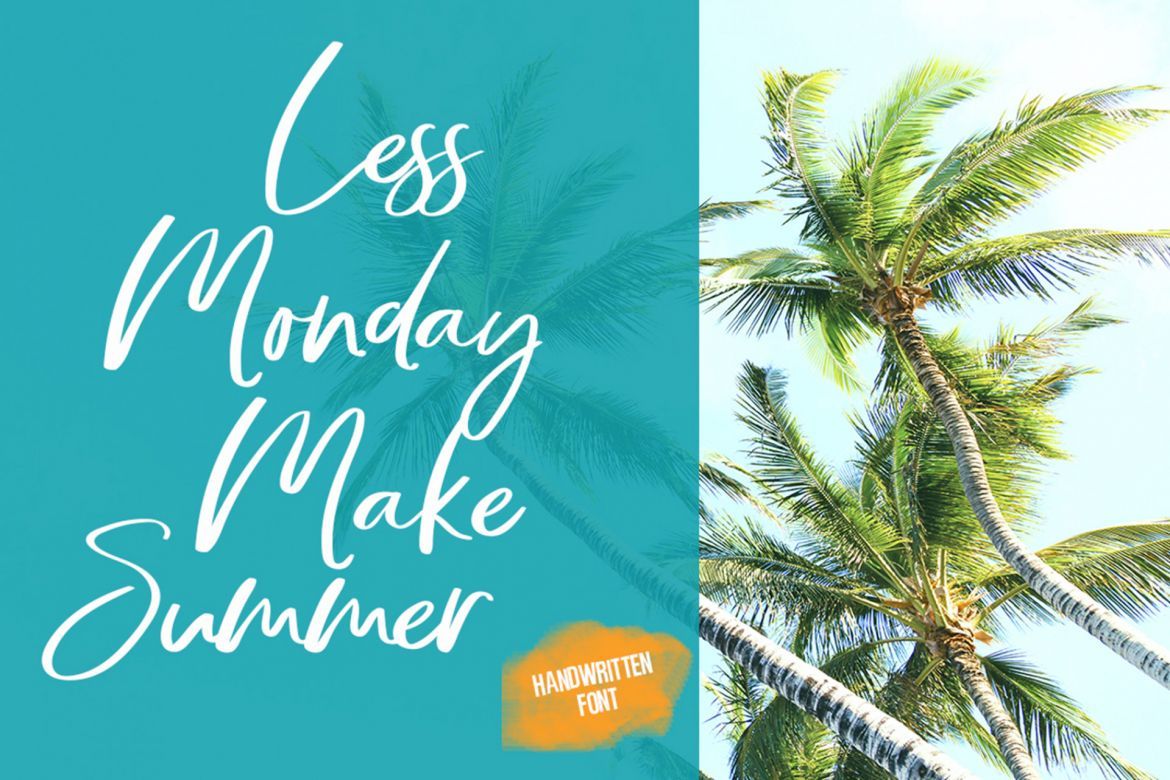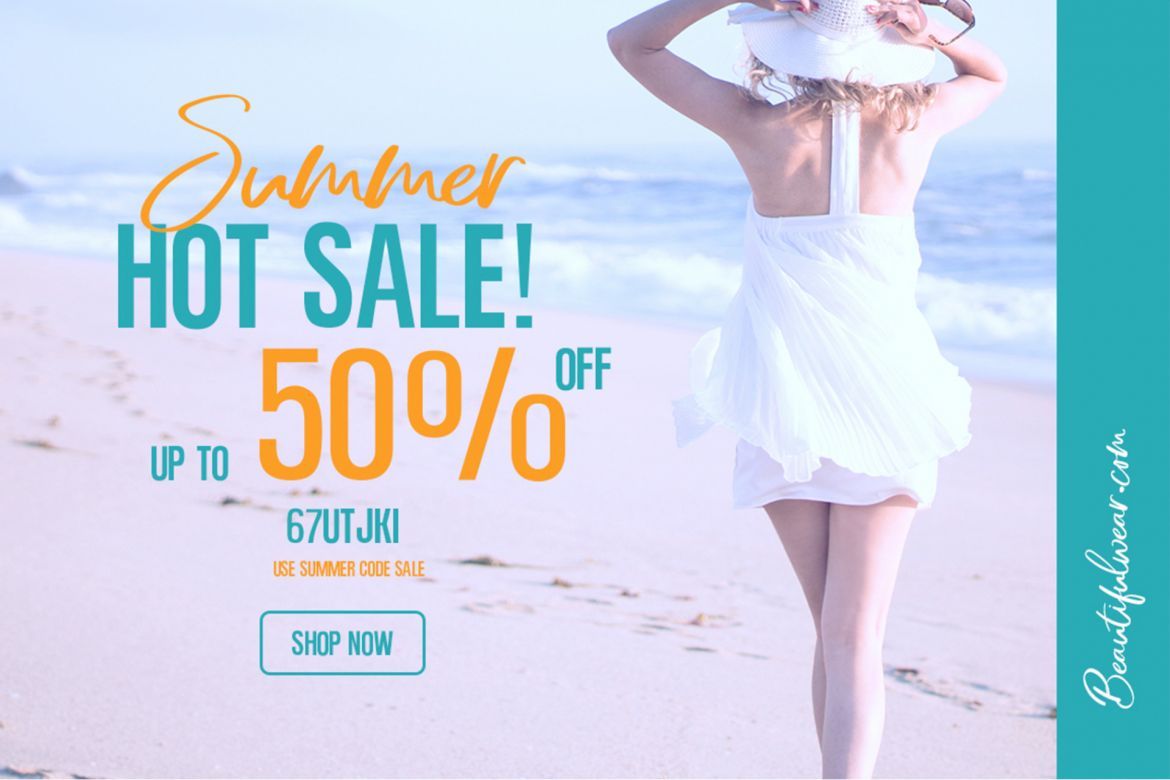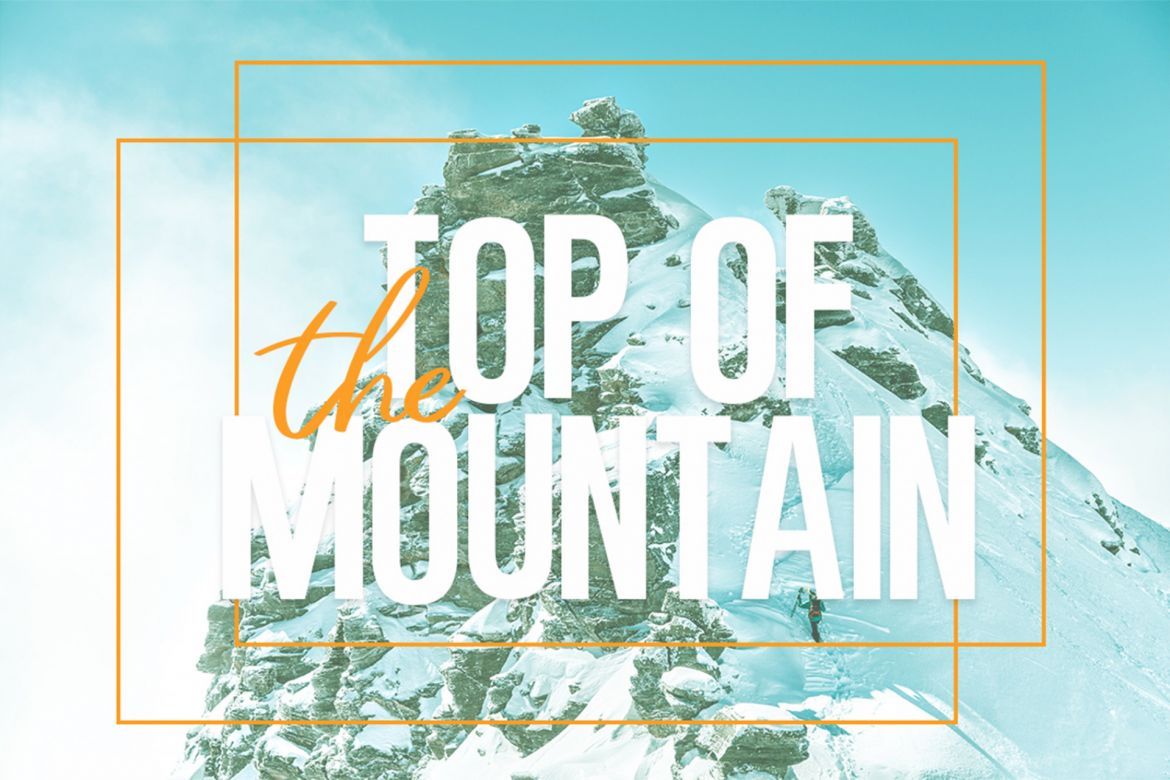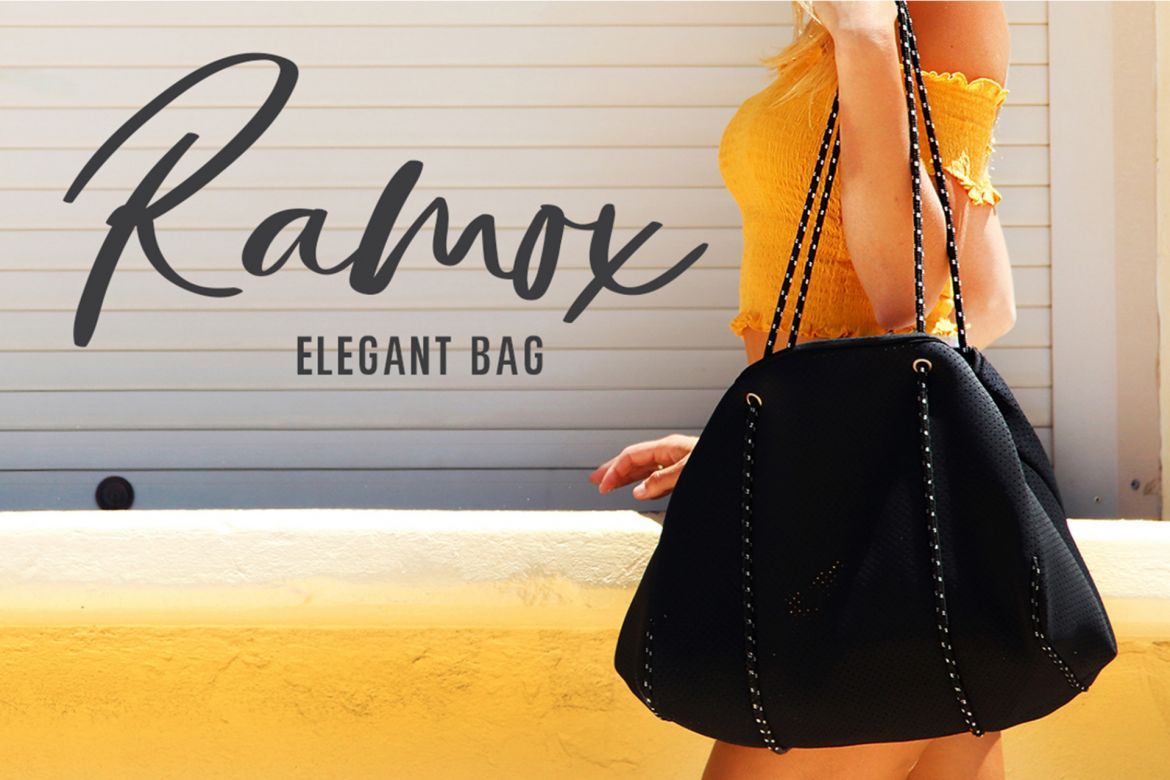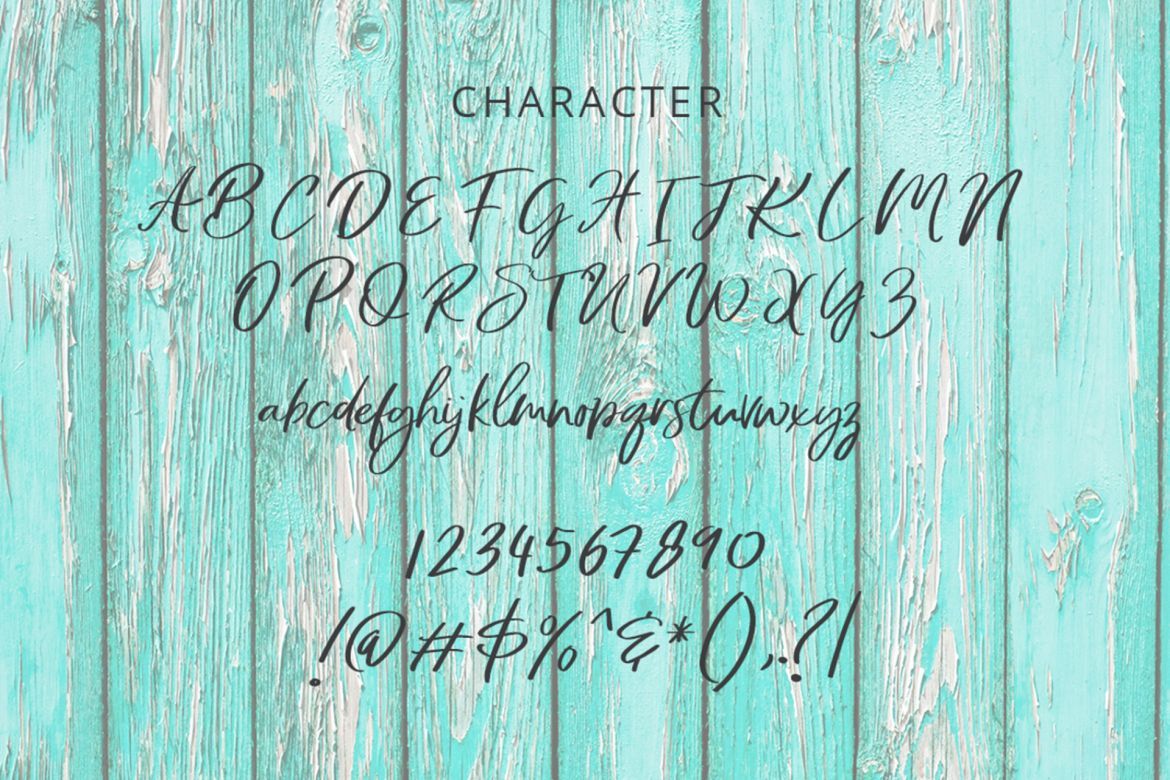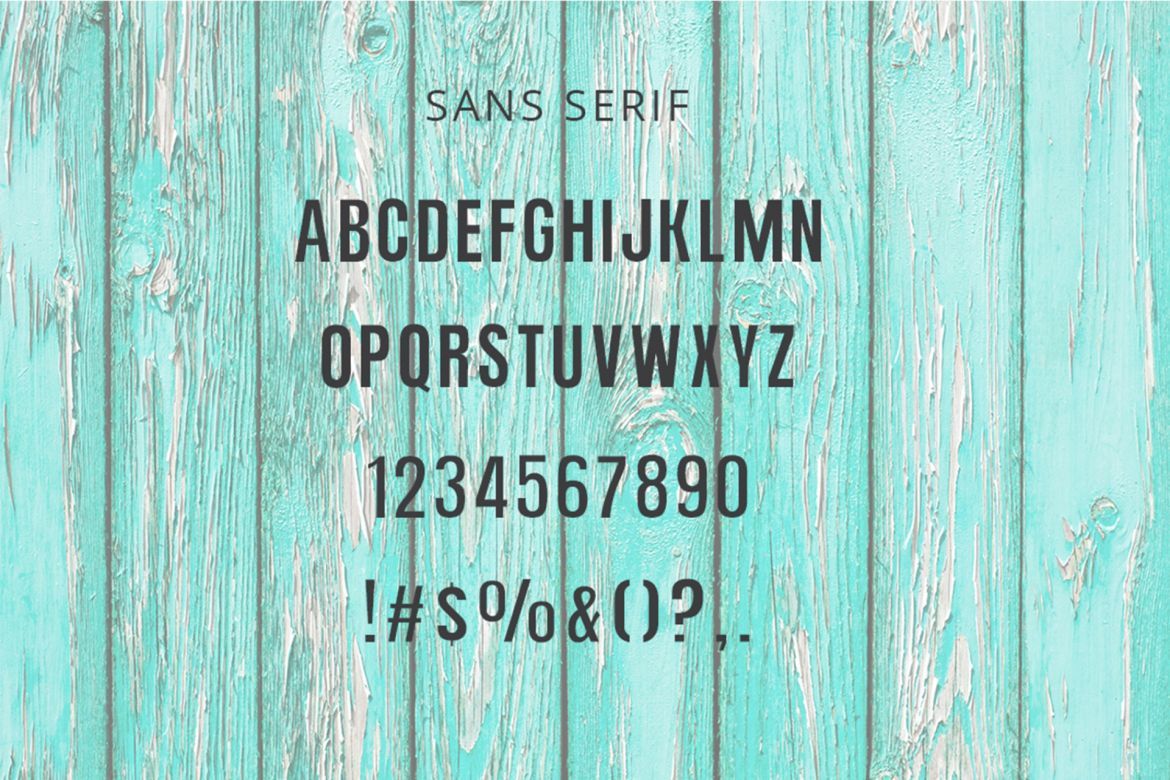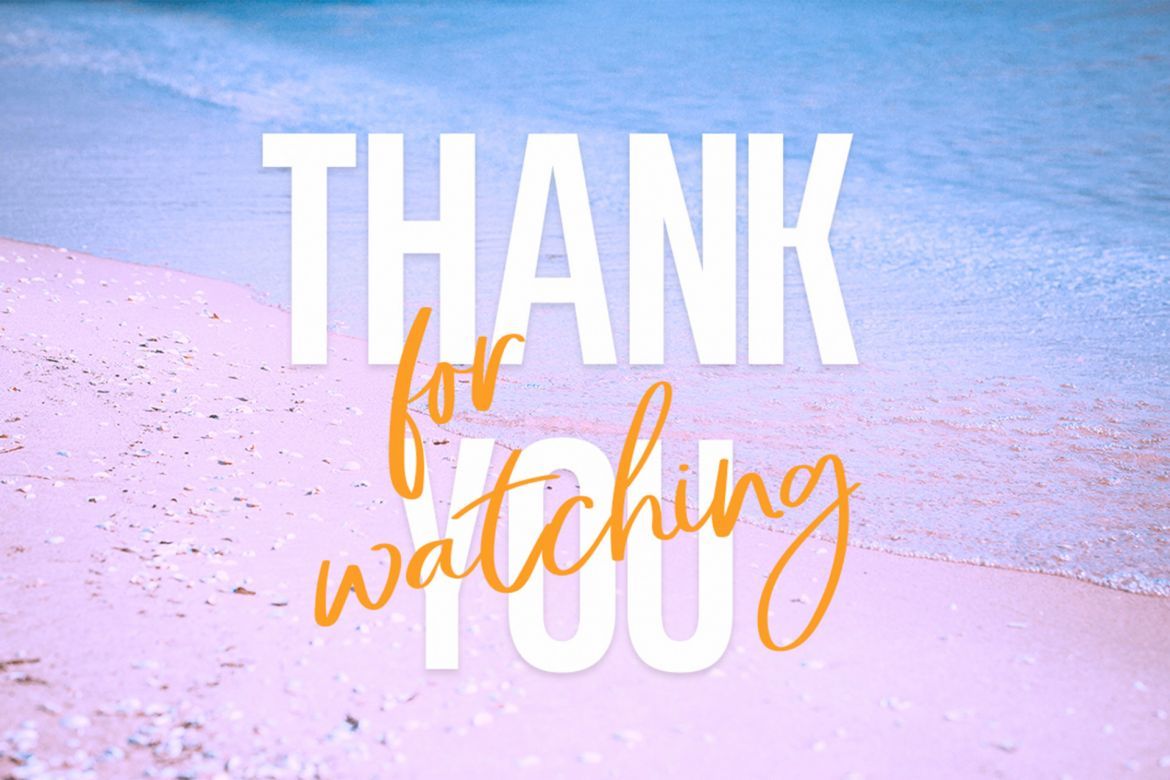
Bright Sunday Font Duo
Bright Sunday is a cool and charming font duo. When combined, these two fonts will add a unique spark to any design project!
• ligature
• tons of glyphs